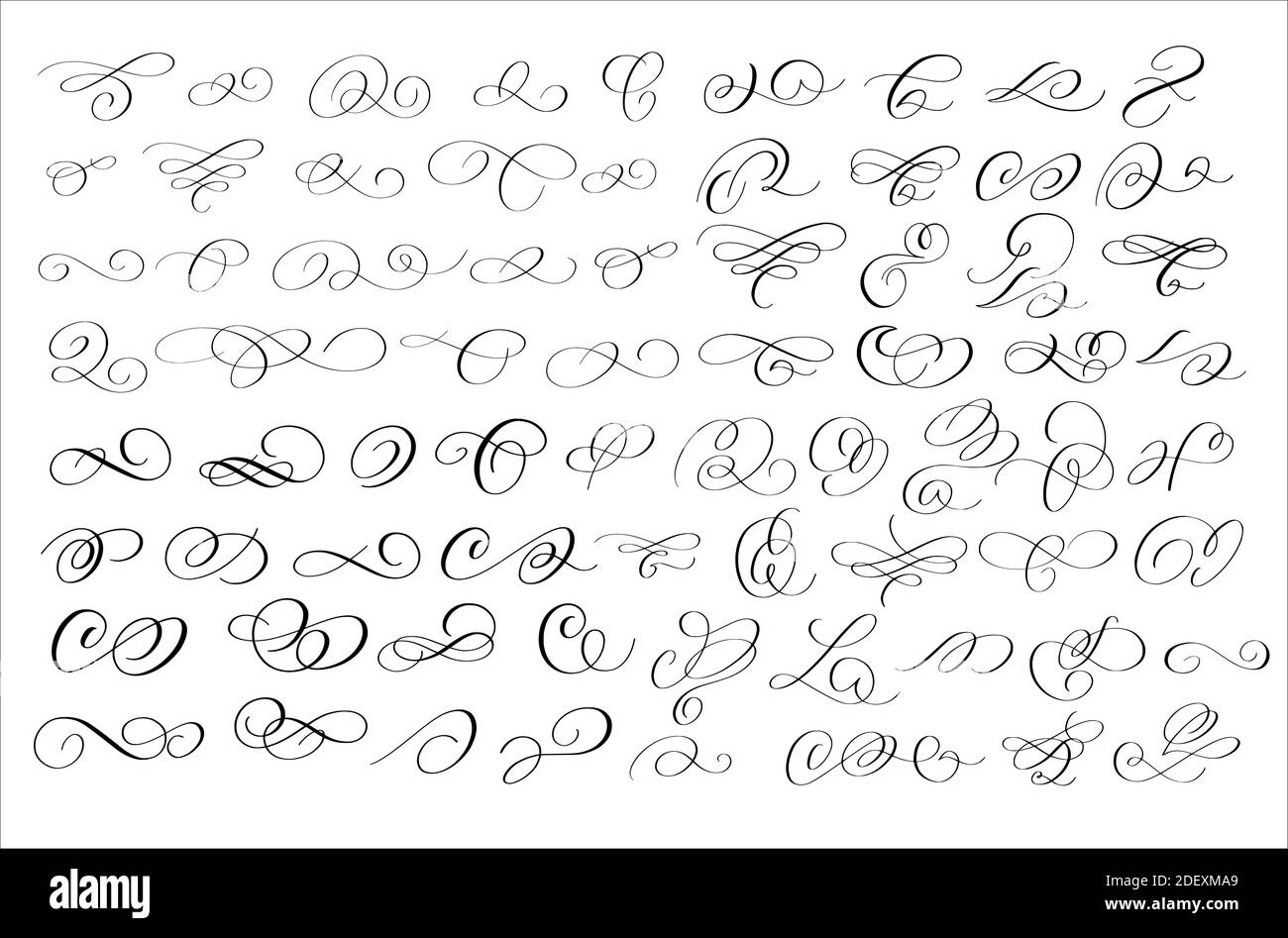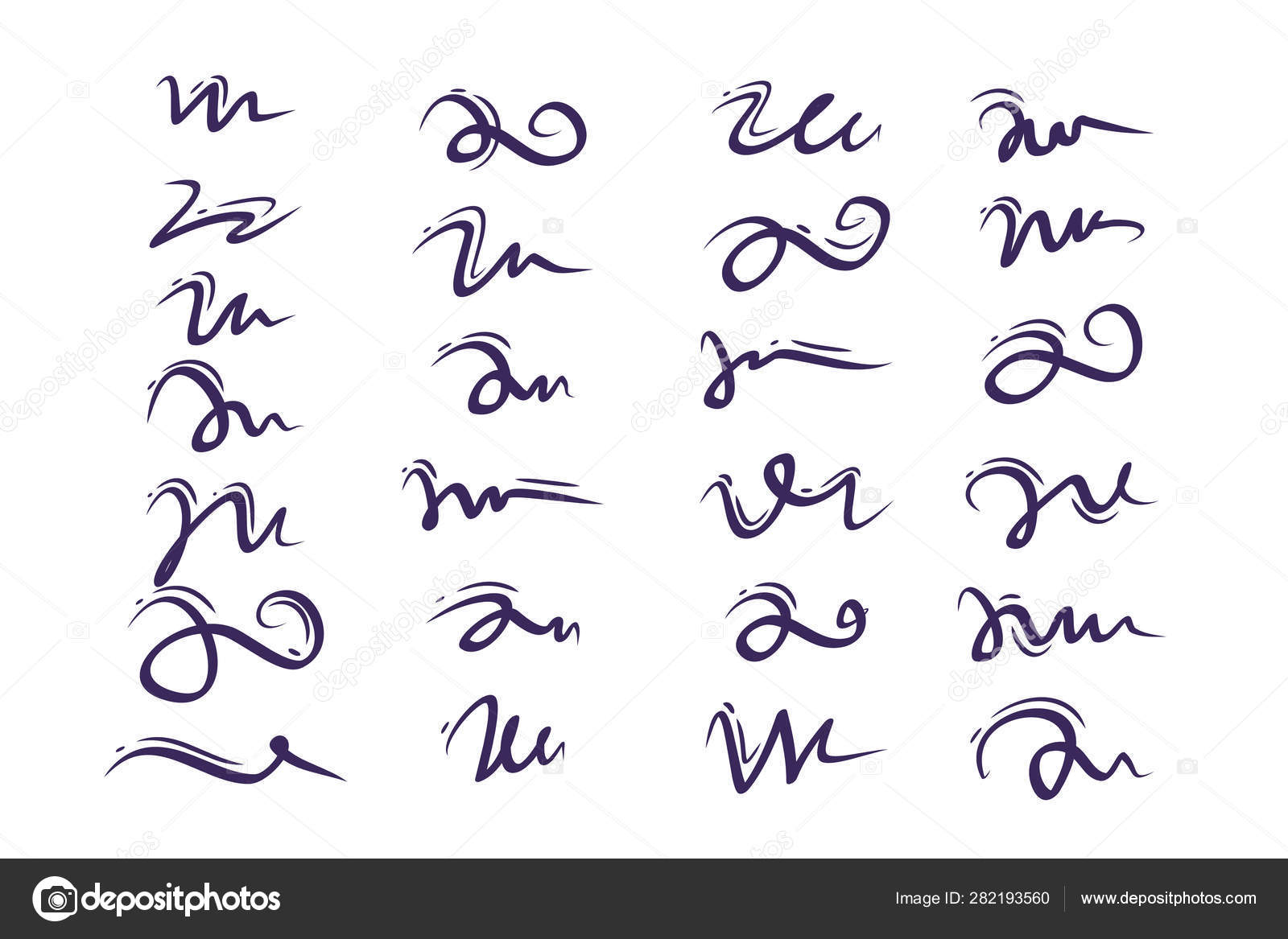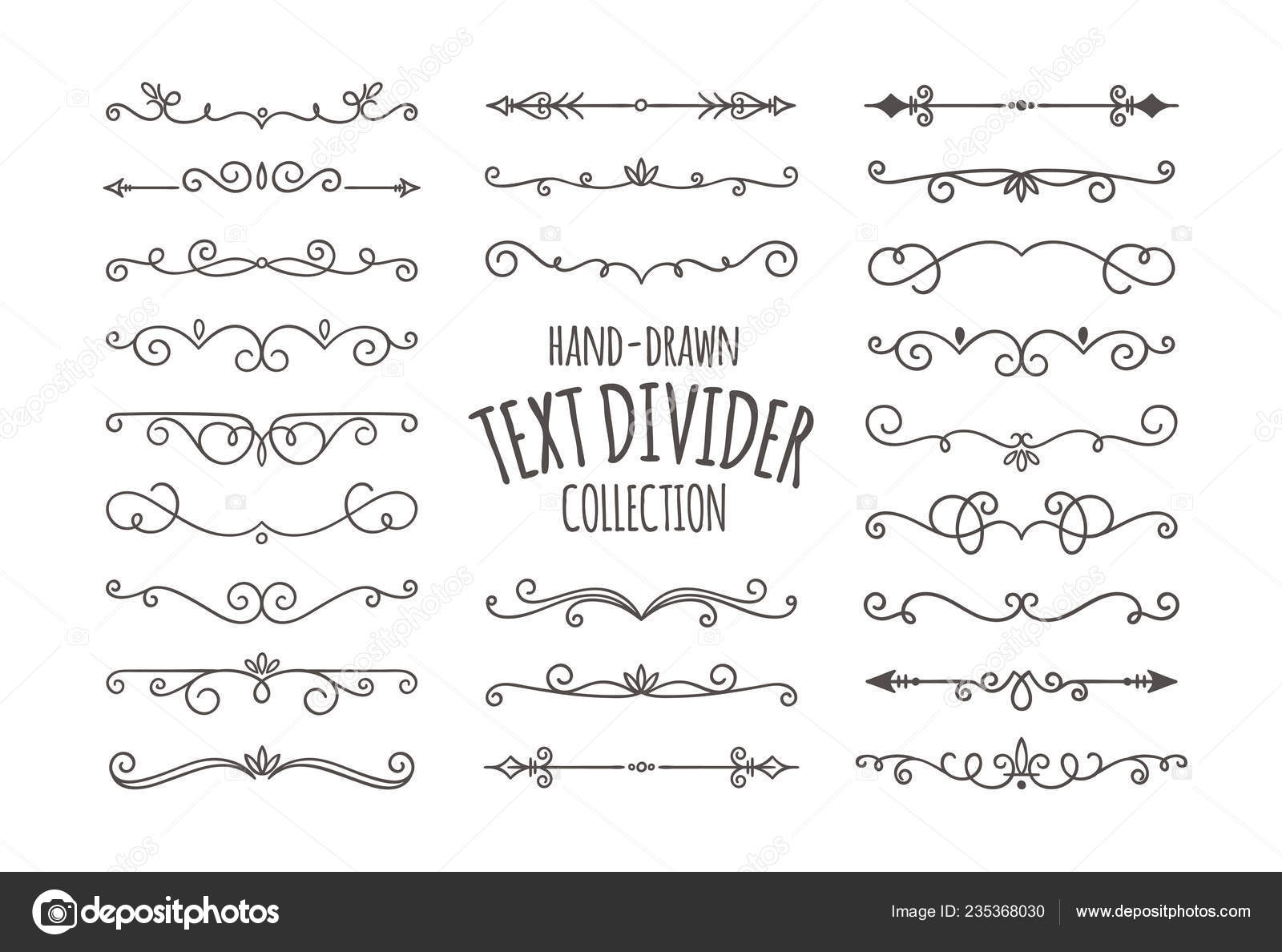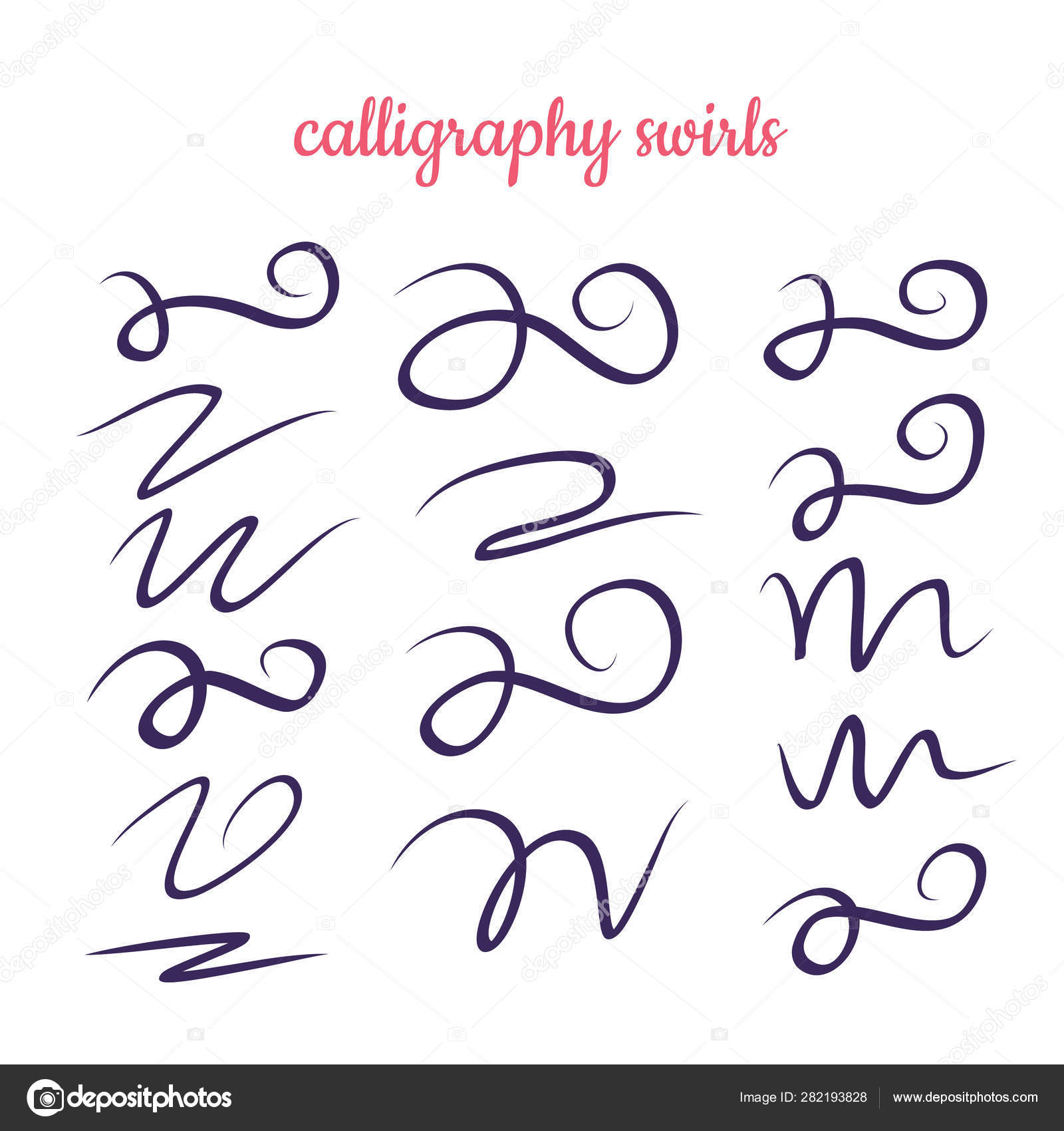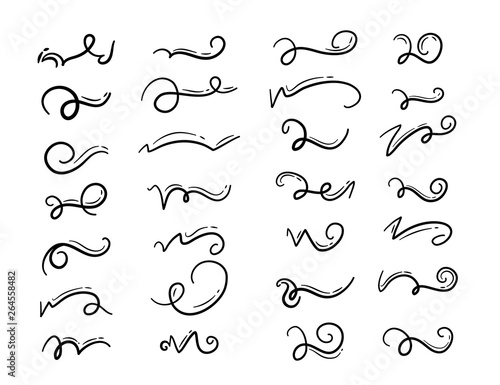
LHF Encore lends itself to designs requiring a formal or professional appearance. Download Swirly Fonts for free in the highest quality available.
While I used this swirl concept for a holiday card you can use it for anything.
Calligraphy swirls font. Burgues Script created by Alejandro Paul is a typical font family of calligraphy style. Script calligraphy font types script hand scripts alphabet cursive stroke font alphabets calligraphy fonts vector filigree oranaments calligraphic handwritten handwriting script font flourishes. Stylish Calligraphy à by Mistis Fonts.
Calligraphy fonts are widely used in wedding event invitations original logo design religious art films TV etc. Jan 25 2021 - Explore Luis Andrades board Calligraphy Swirls on Pinterest. It is because of different glyphs available within a single font family.
The cursive swirls stand out and come in different variants. See calligraphy swirls stock video clips. Swirl Calligraphy Fonts Stylish Calligraphy by Mistis Fonts Dream Her by Mistis Fonts October Twilight by Mistis Fonts Lucy the Cat by Mistis Fonts Watermelon Script by Mistis Fonts Unicorn Calligraphy by Mistis Fonts Autumn in November by Mistis Fonts The Heart of Everything by Mistis Fonts.
Header calligraphy swirls consist of five loops. True to its name the header swirl looks great at the top of any page. Hand Lettering Script OTF TTF Devilion is one of the best modern calligraphy hand-lettering fonts featured on Envato Elements.
In Script Calligraphy. With expertly balanced letters Encore is perfect for creating quick logos. 892850 downloads 176 yesterday 7 comments Demo.
Have you ever seen graphics with a calligraphy font with lots of fancy swirls and lines but when you got that font it was plain and boring. See more ideas about hand lettering fonts. We have 56 free Swirly Fonts to offer for direct downloading 1001 Fonts is your favorite site for free fonts since 2001.
Menu design gift cards stationery. This short guide will show you how to access them and use font glyphs to make your text look fancy. The most common calligraphy swirls material is.
According to the designer the font is an ode to the late 19 th century American calligrapher Louis Madarasz known as the most skillful penman the world has ever known. Its a great choice if you want versatile hand-lettering alphabet fonts. This typeface also features a clean and stamp glyph style.